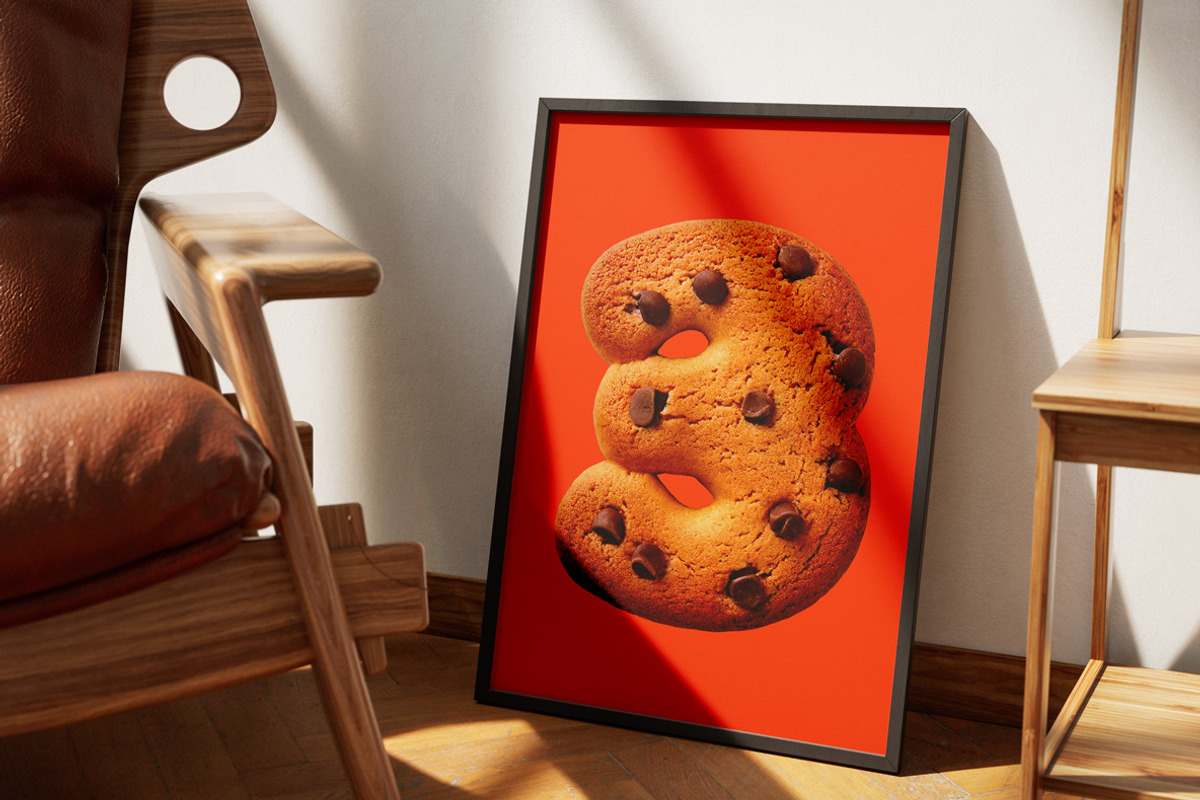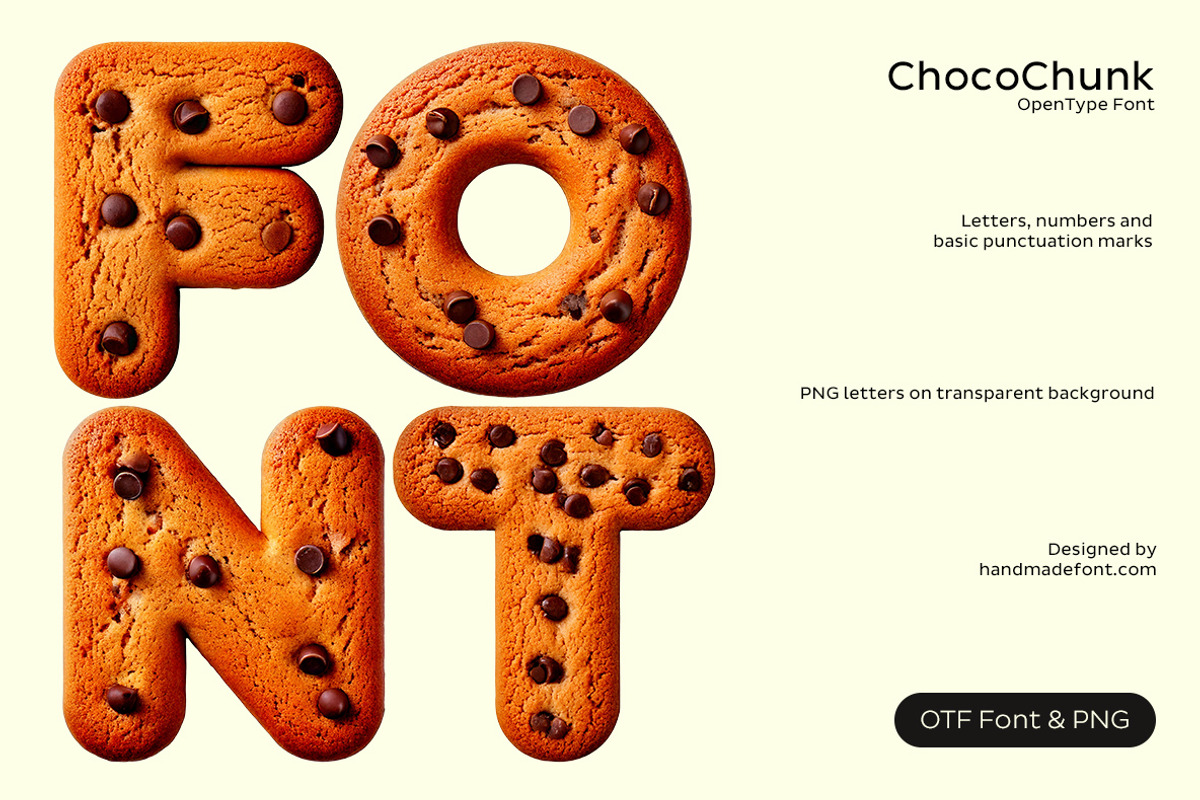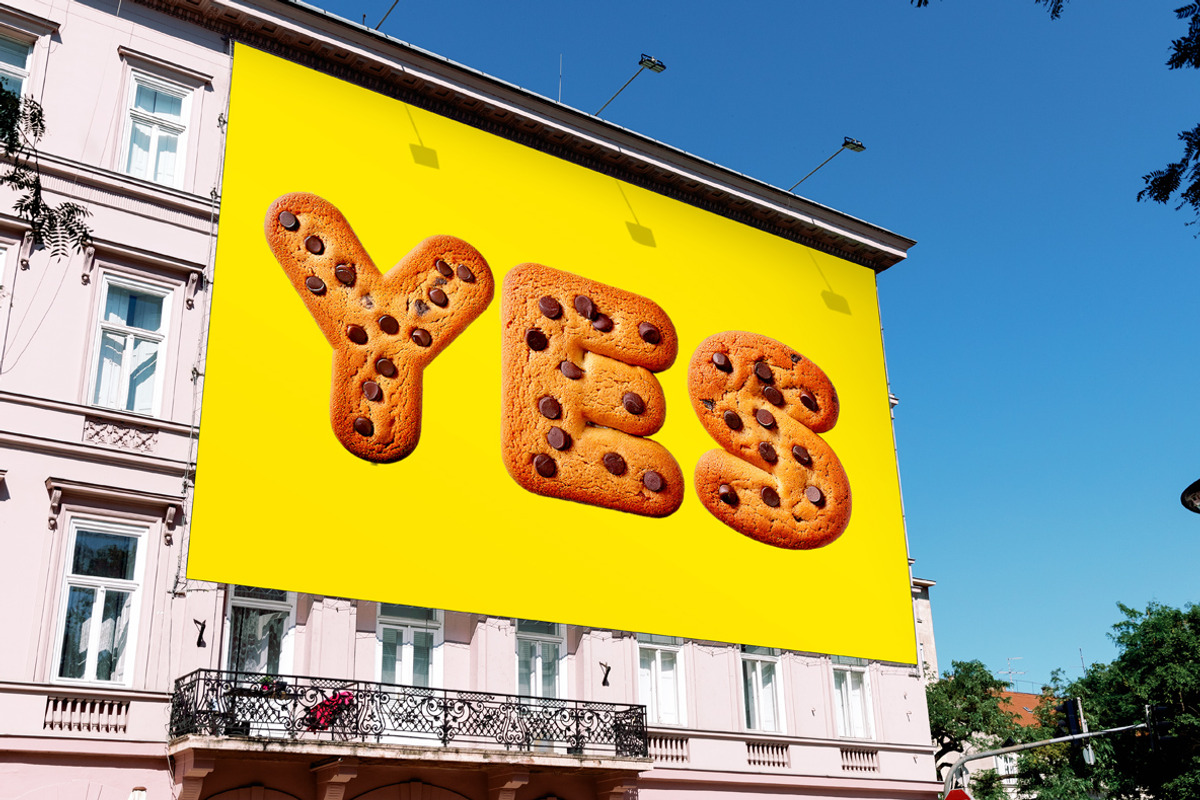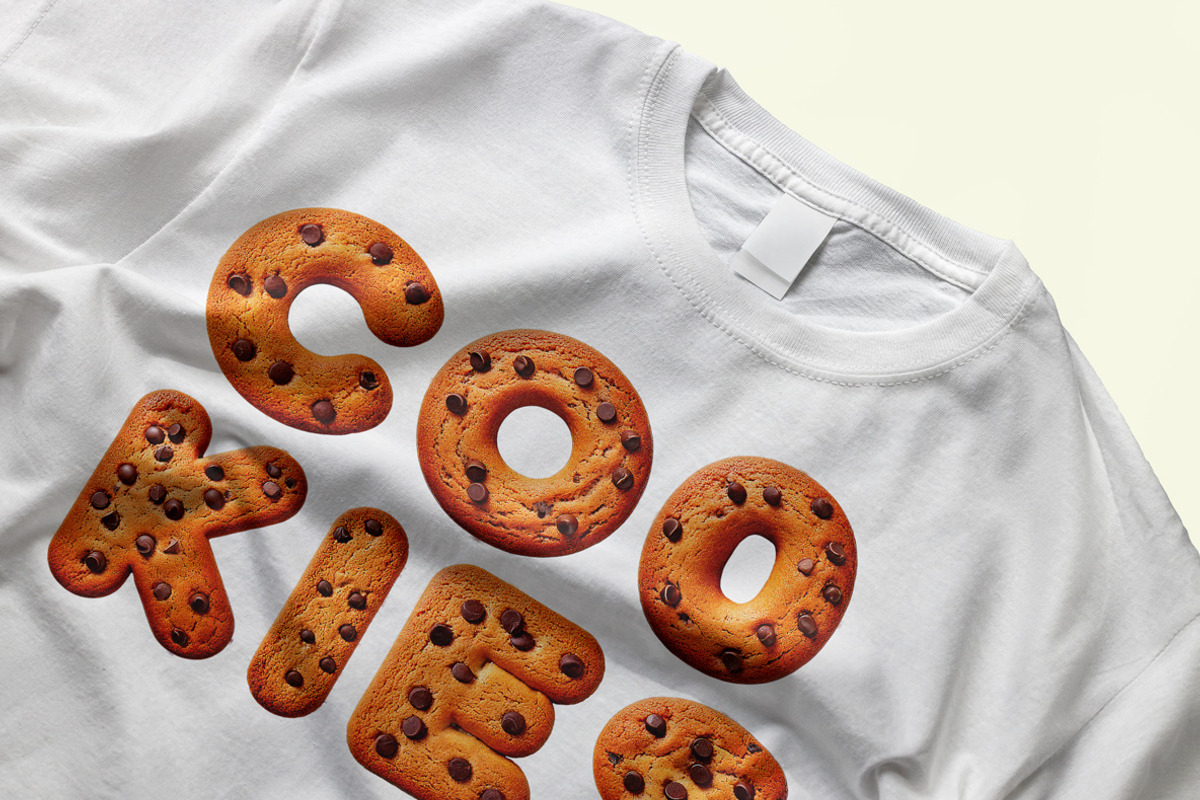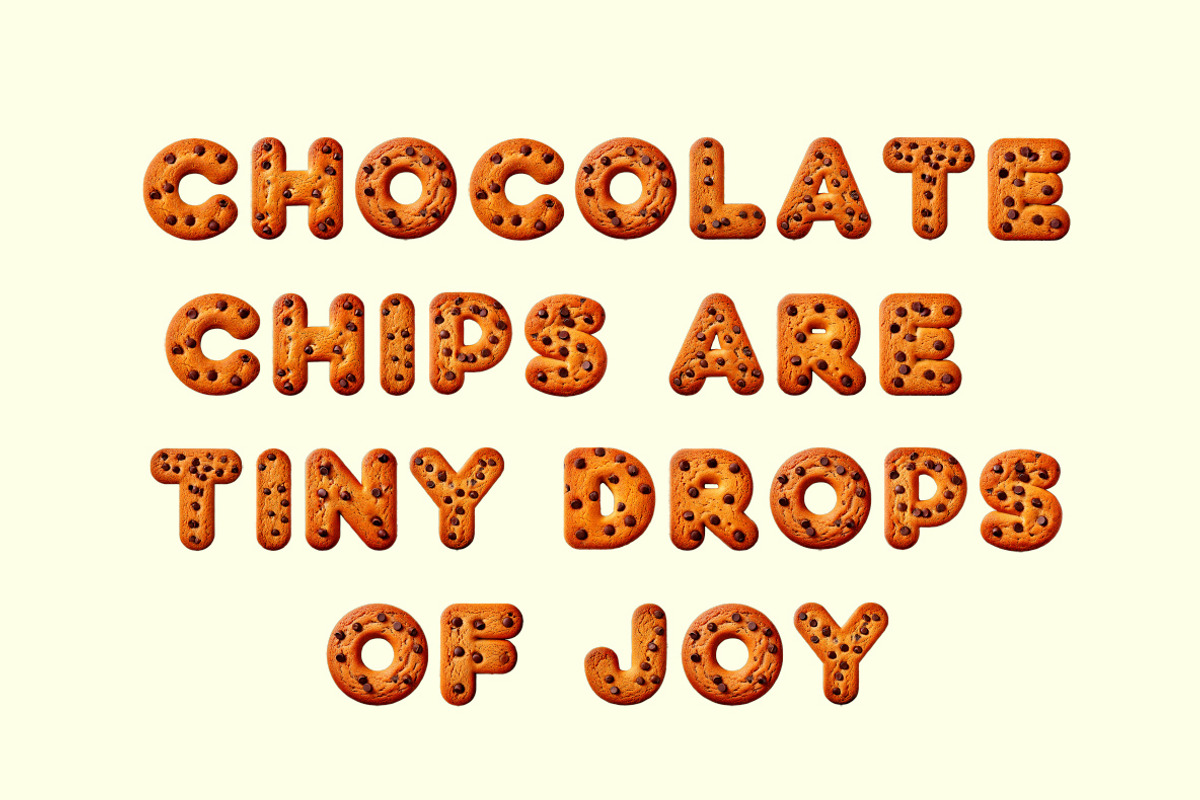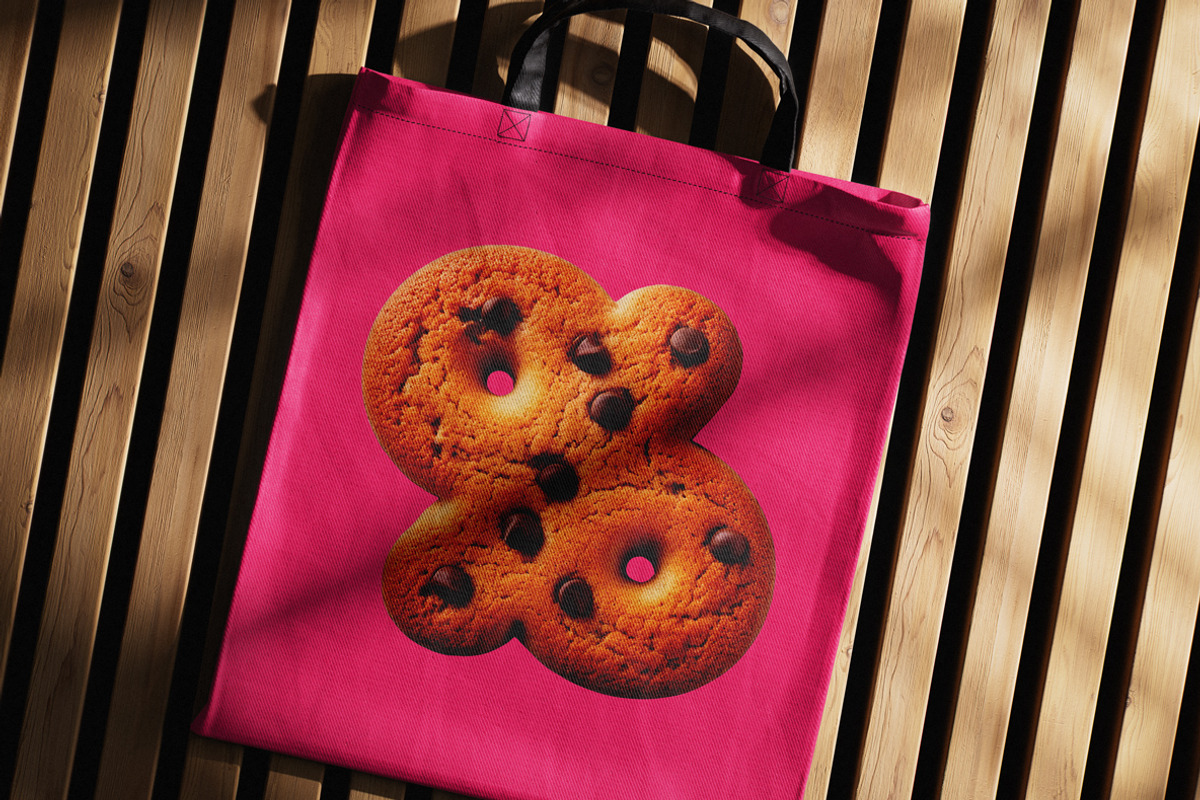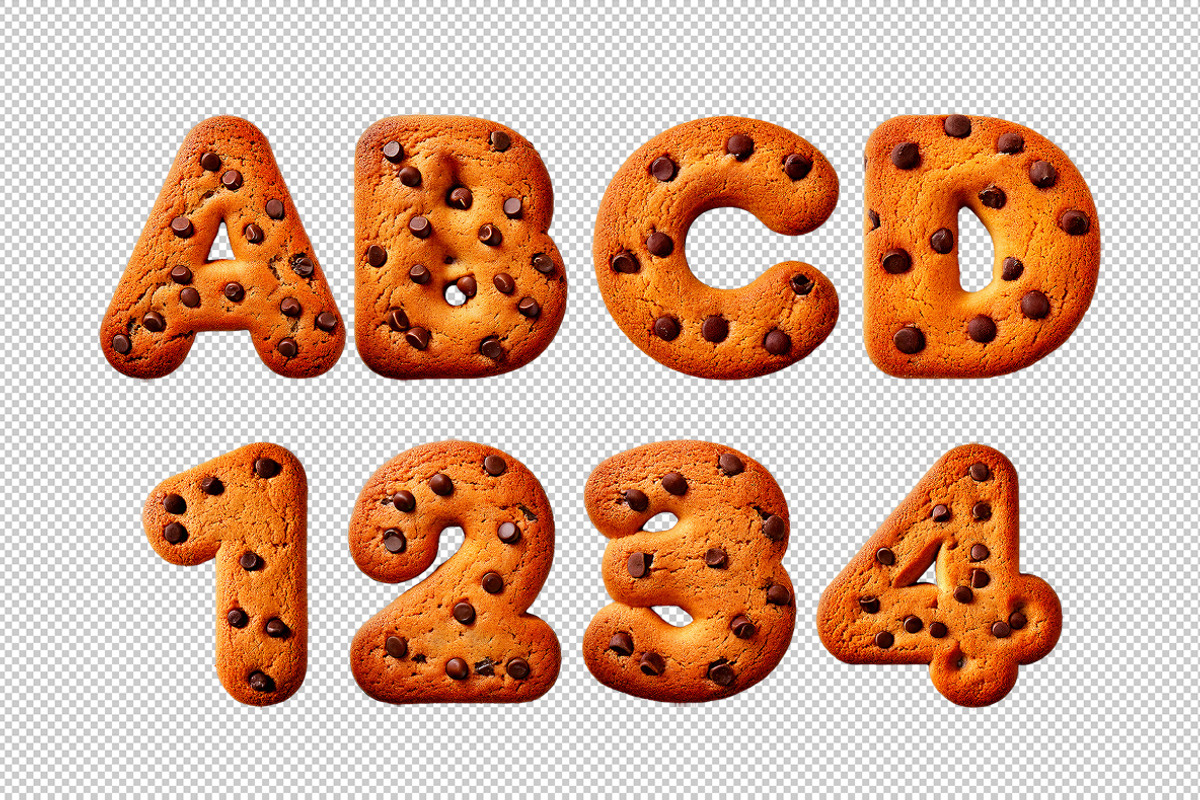
ChocoChunk Font
ChocoChunk Font is a bold and whimsical display typeface that looks good enough to eat. Designed to resemble freshly baked chocolate chip cookies, each letter is richly textured with a golden-brown crumb and dotted with gooey chocolate chips. The soft, rounded forms and playful chunkiness evoke the warmth and nostalgia of homemade treats. Perfect for food packaging, bakery branding, children's books, or any project that needs a fun and delicious touch. This font isn’t just typography—it’s dessert with a side of personality. With ChocoChunk, your words don’t just say something—they snack on your audience’s attention. Sweet, chunky, unforgettable.